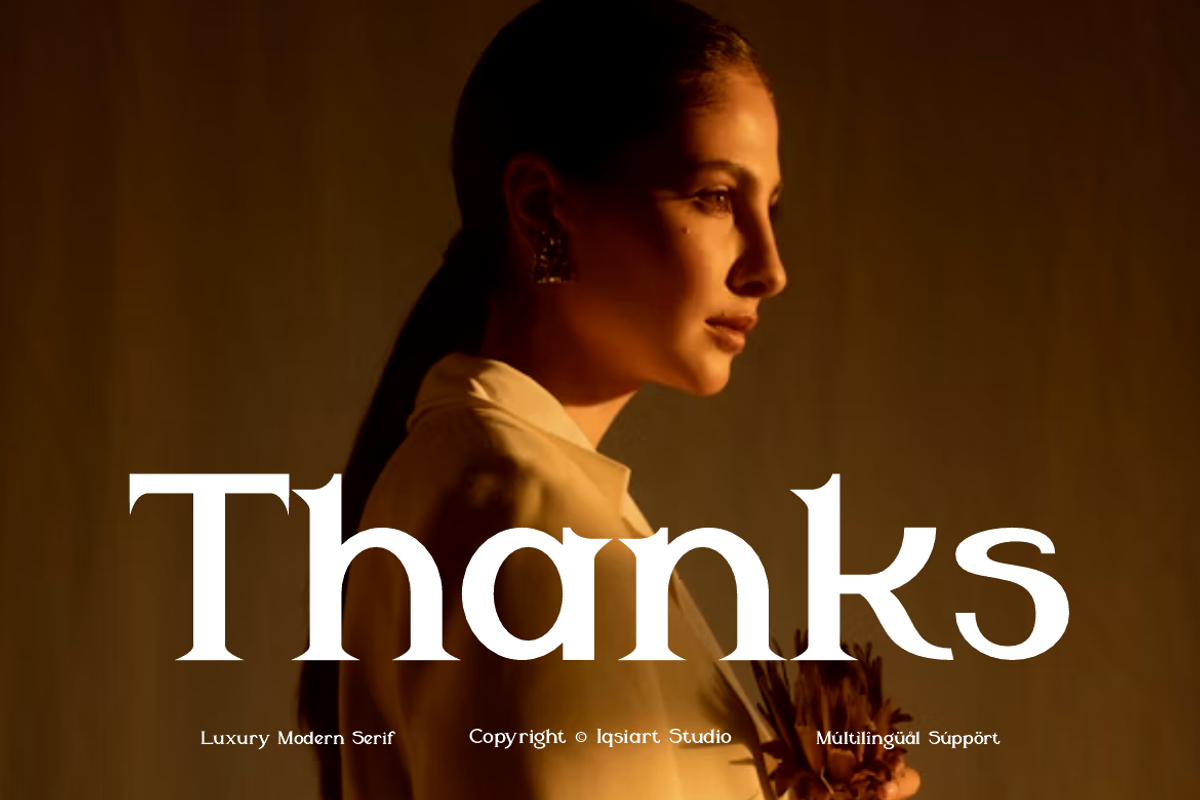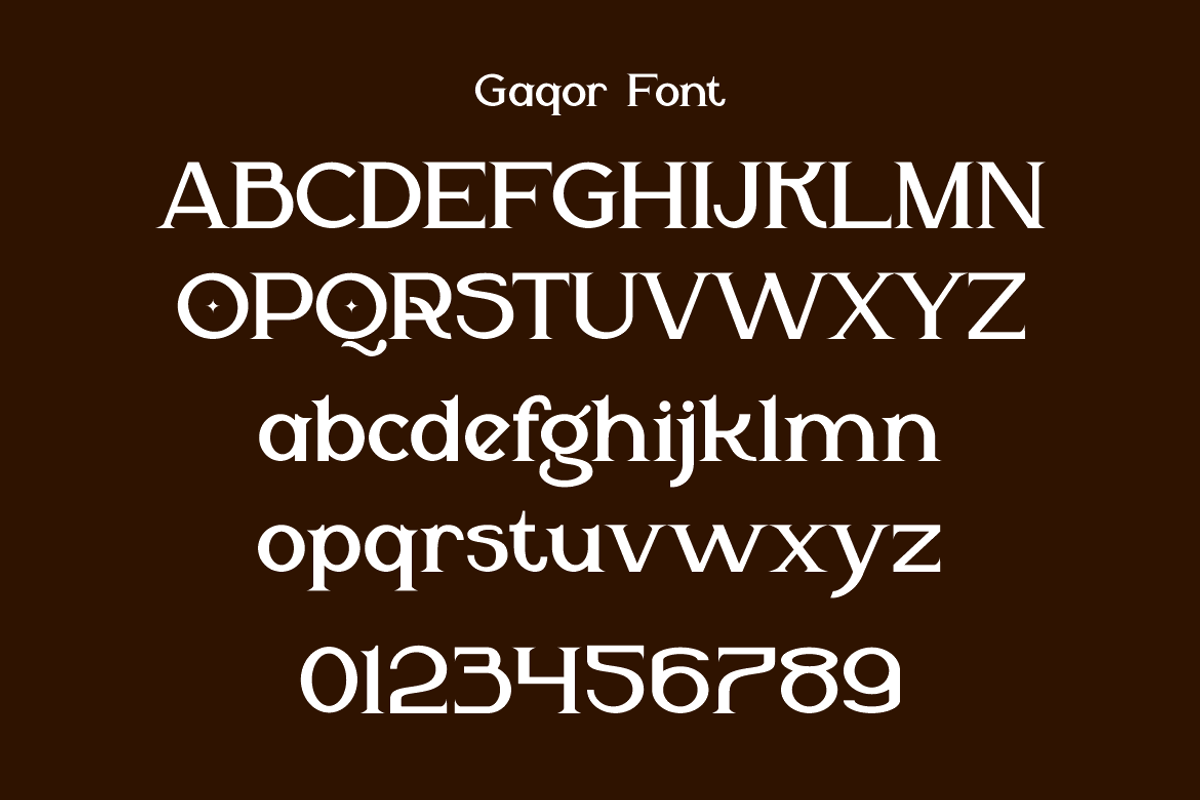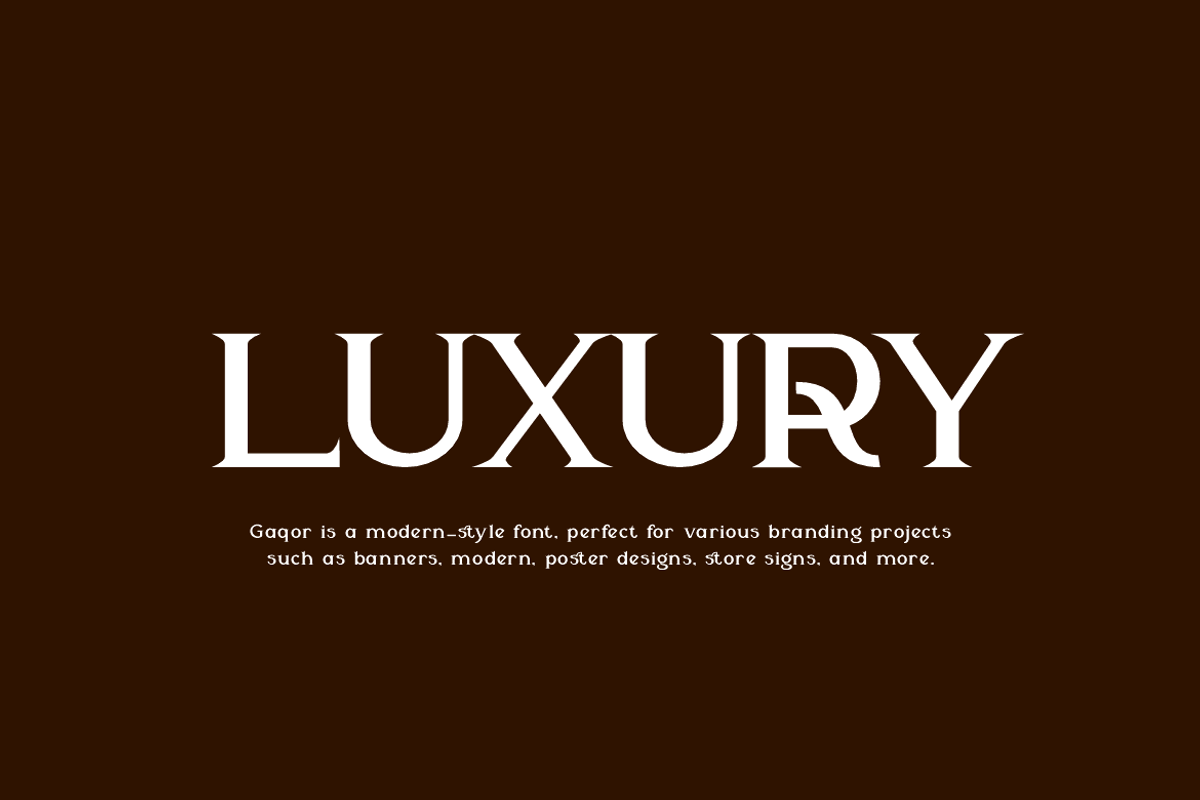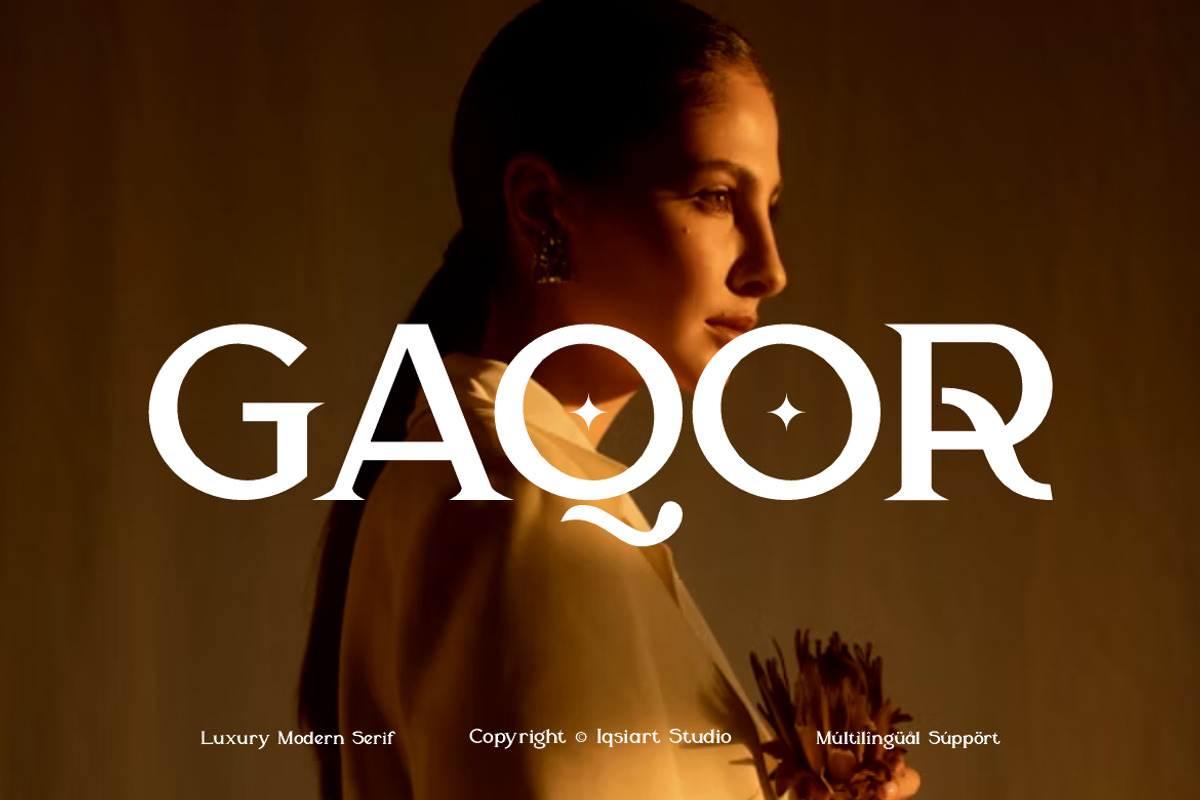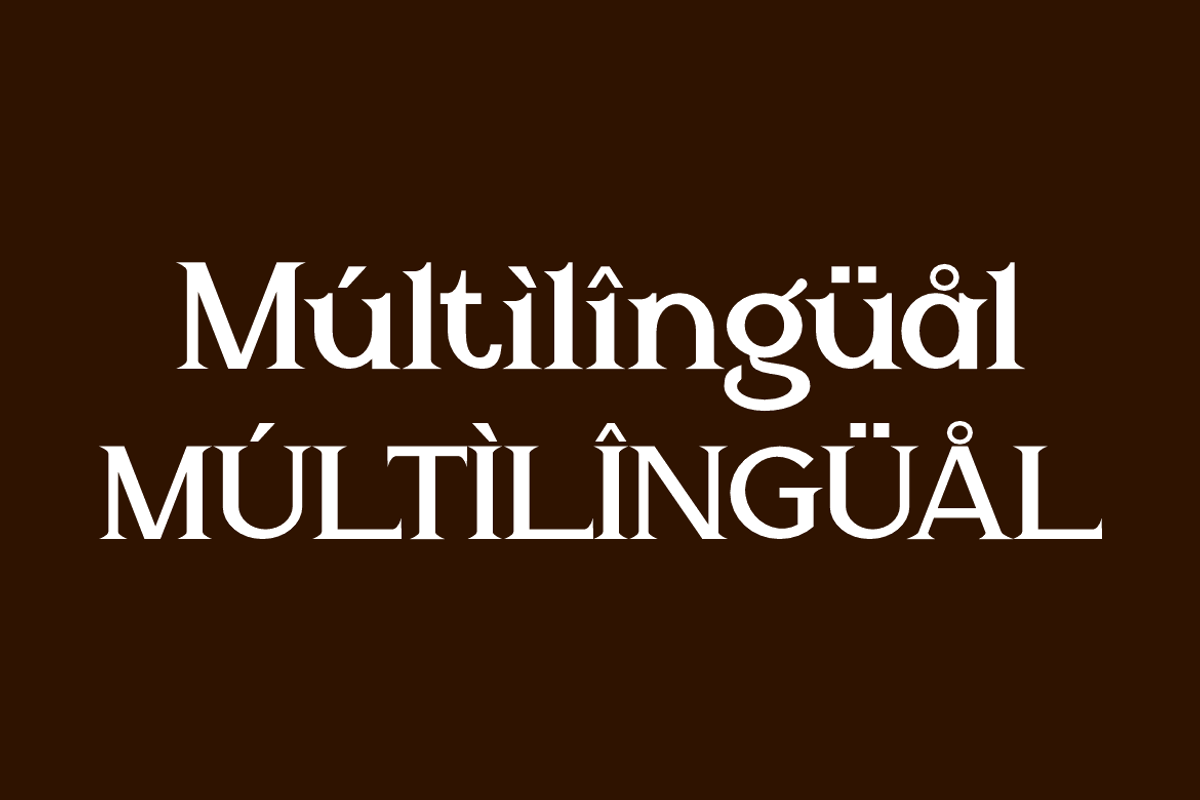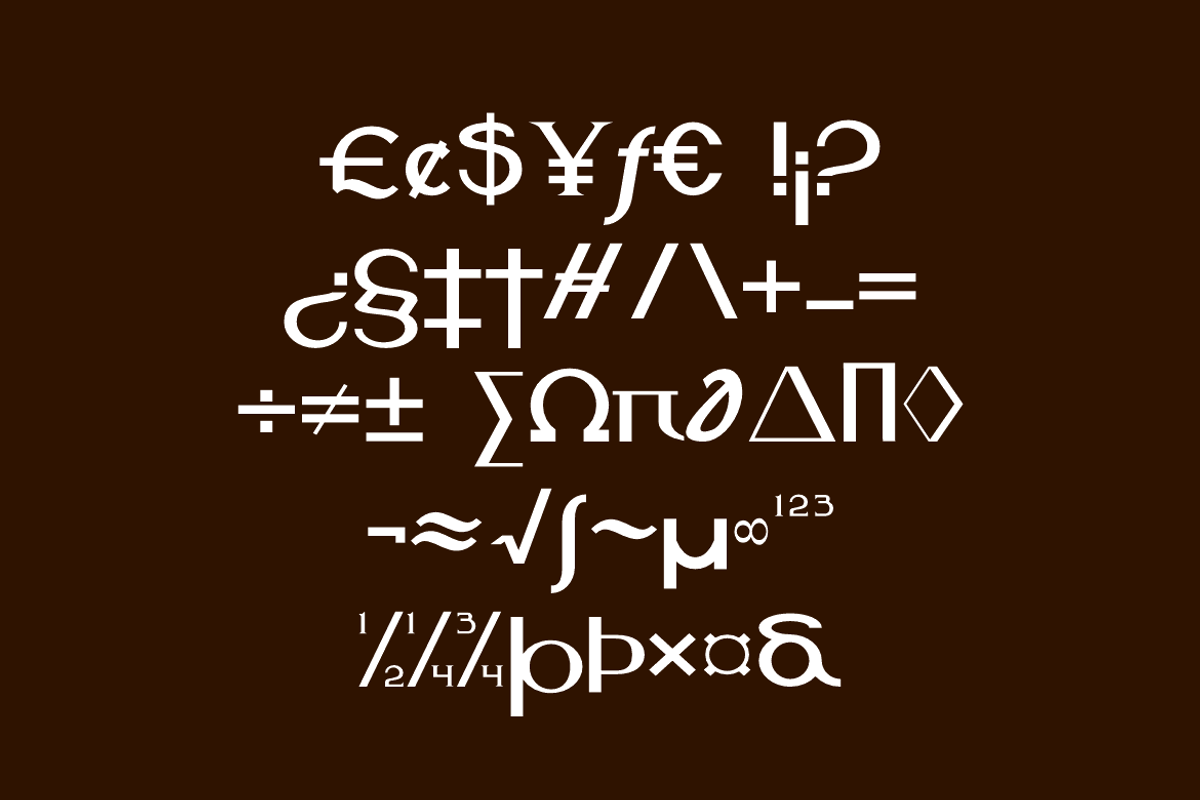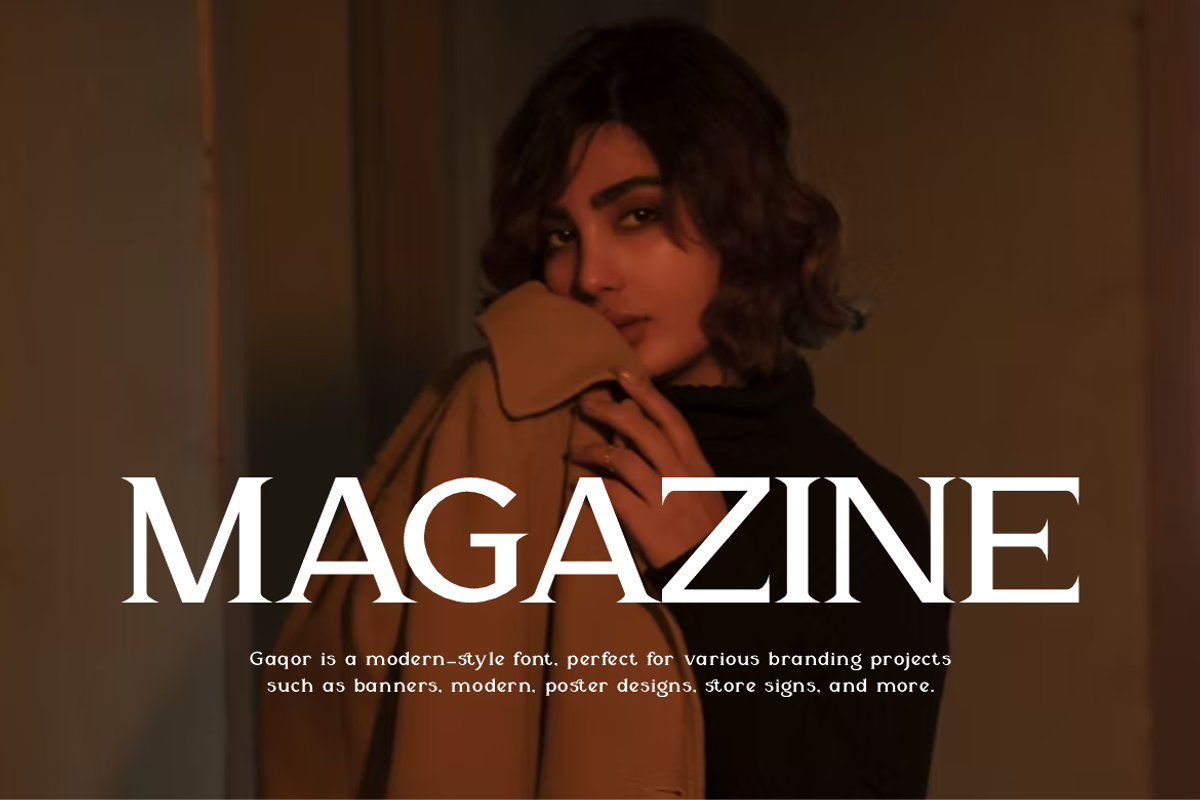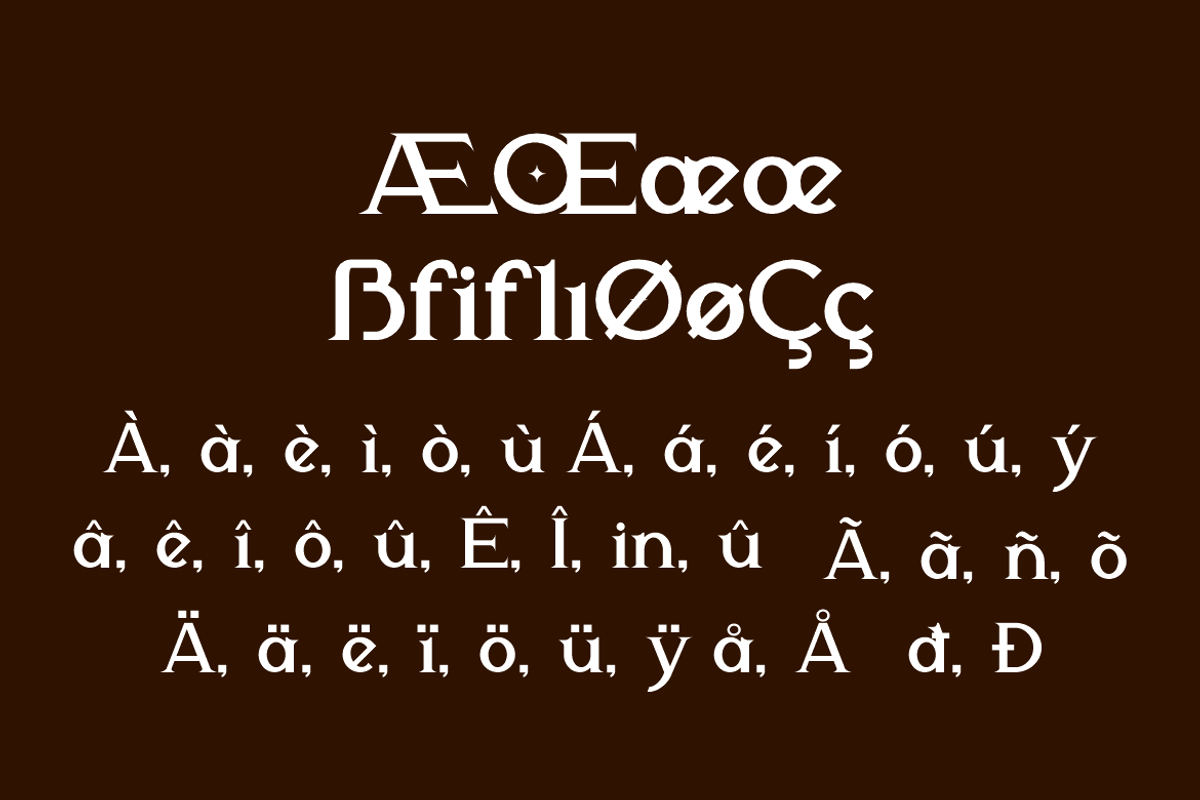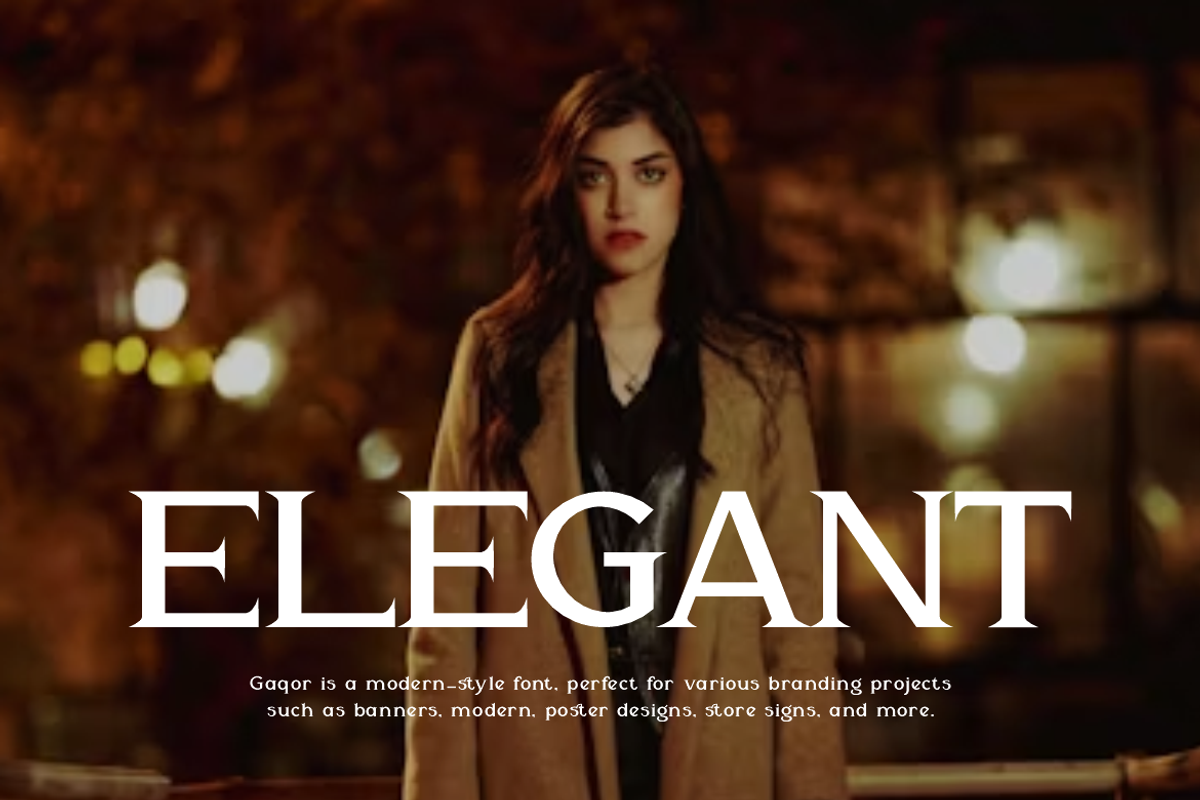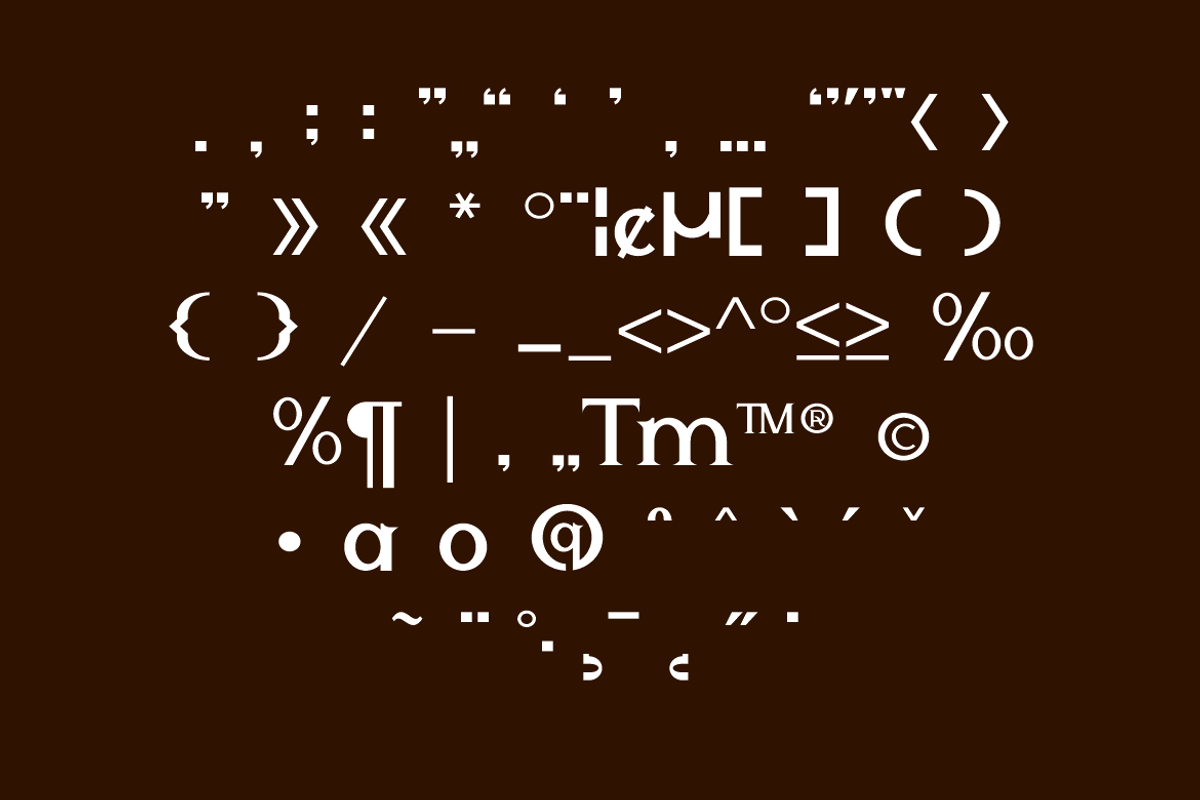
Gaqor - Modern Cinematic Font
Gaqor Font is a serif and authentic display typeface
that suits a variety of design needs. We offer a wide range of themes